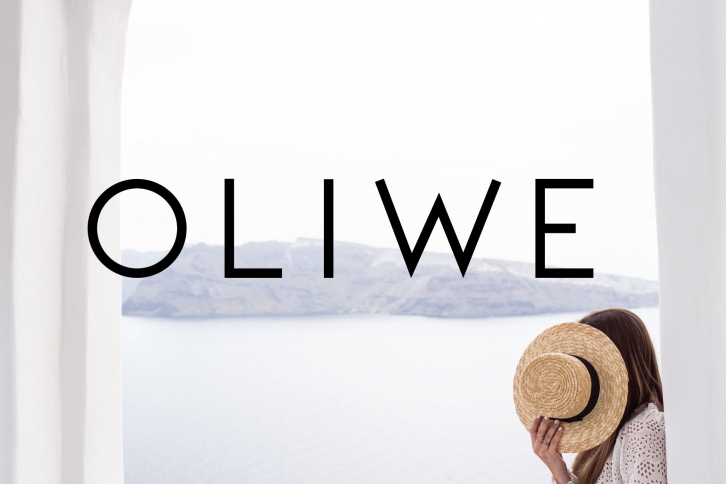
Oliwe is a trendy and unique font with an authentic style. It was designed by lili lieber and it's a great choice for creative people who need such a font. It was released on February 12, 2018 and the file size is 9.20 MB. Oliwe will add an organic vibe to any design idea!